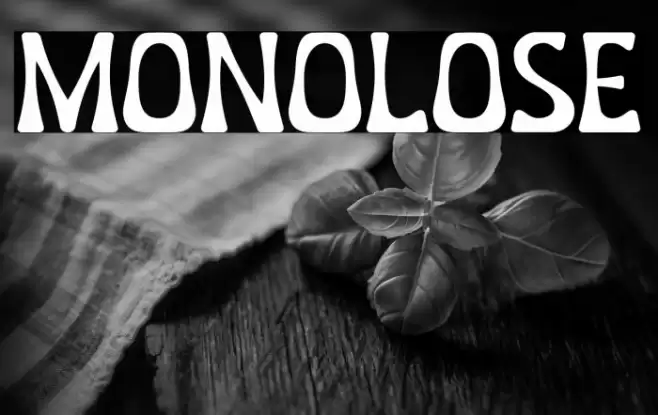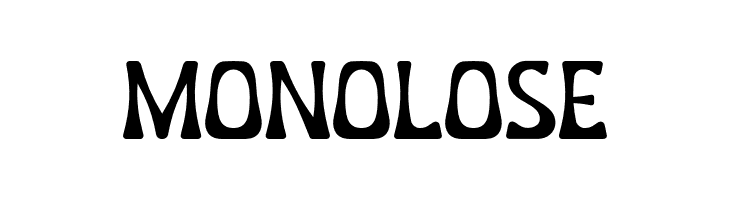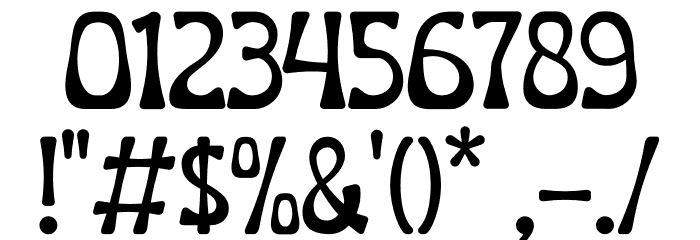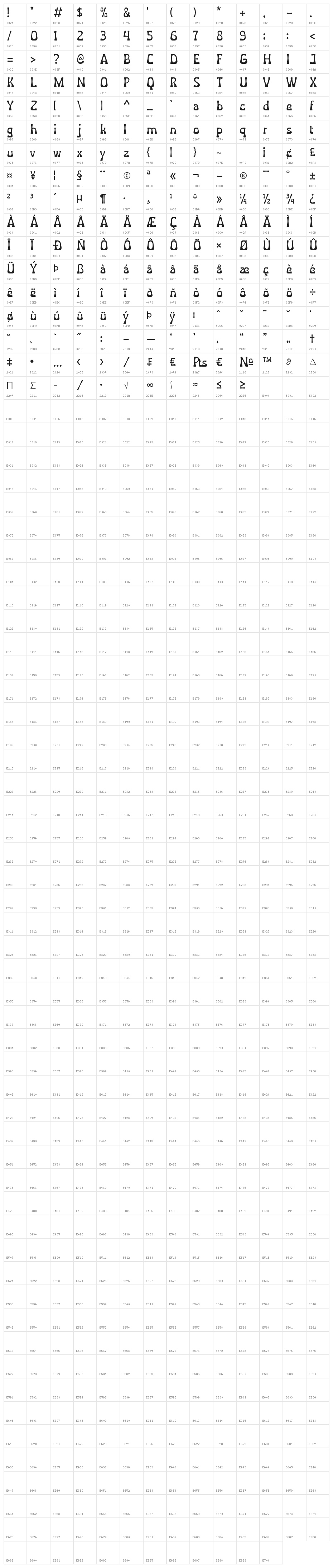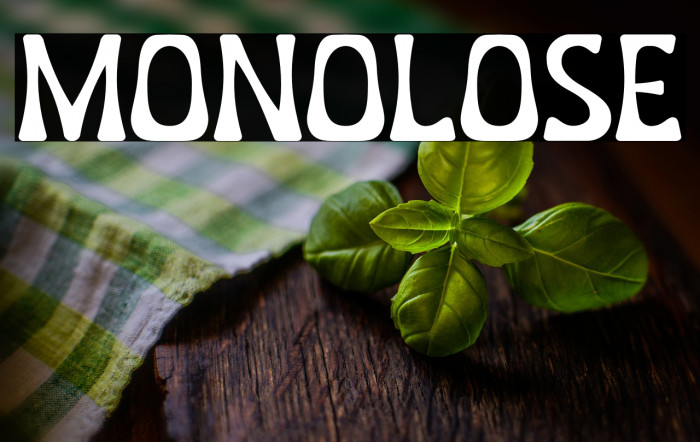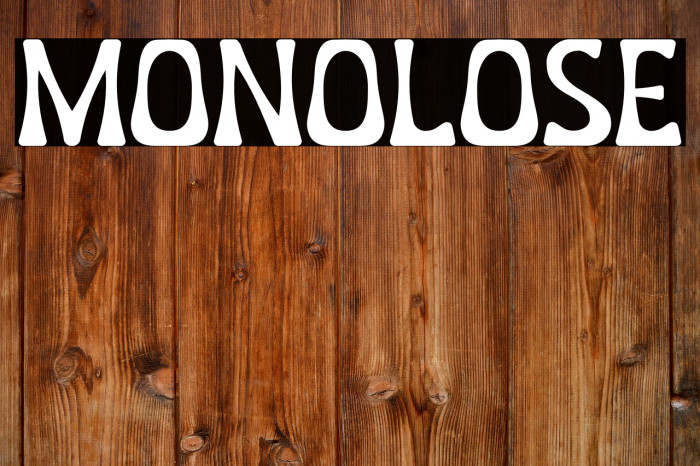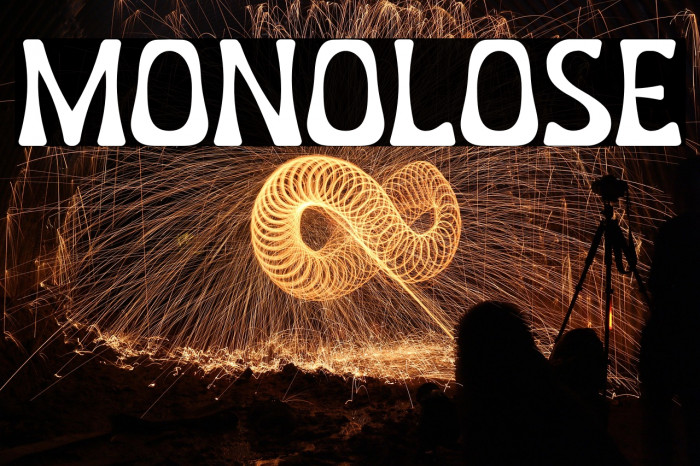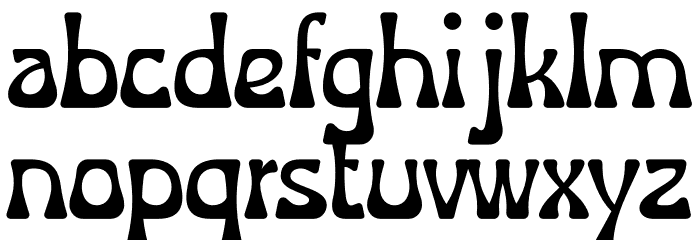
MONOLOSE Font
MONOLOSE Description
This font features a playful and bold design with a unique, slightly irregular shape that gives it a hand-drawn feel. The uppercase and lowercase letters maintain a consistent style, with rounded edges and a whimsical flair. The numbers and special characters are equally bold and match the overall aesthetic, making it suitable for creative and informal projects. The font's distinct personality makes it stand out, while its readability ensures it remains functional.
A playful, bold font with a hand-drawn, whimsical style from Uncategorized fonts.
- Proposed Projects: Ideal for children's books, playful branding, creative posters, and informal invitations.
- Overall Style: Playful, Whimsical